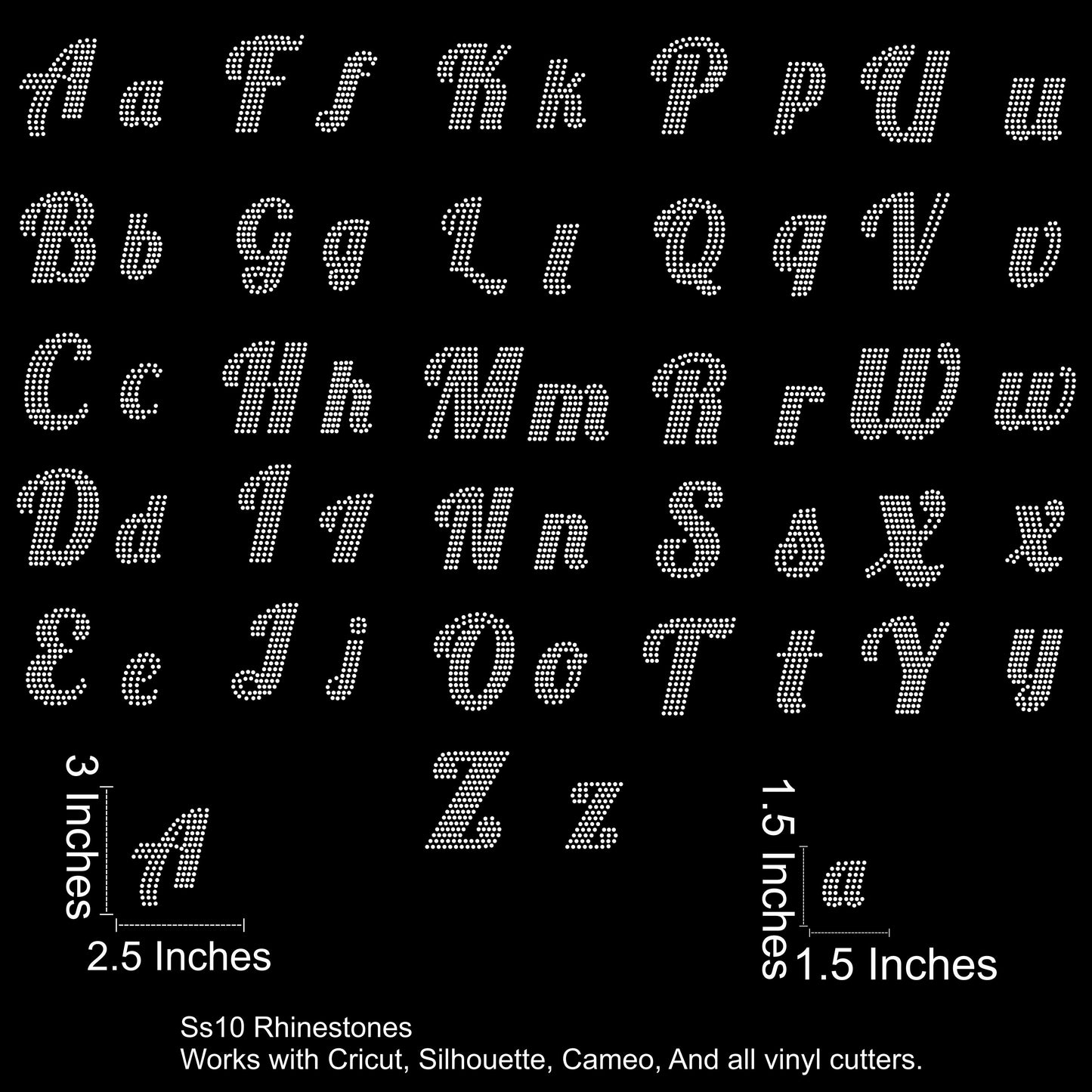
Curvy Luxe Rhinestone Font SVG File (3 inches Tall)
Curvy Luxe – Rhinestone Font SVG (SS10 Size Compatible)
Add elegance and bold style to your next creation with Curvy Luxe, a smooth and flowing script font designed for SS10 rhinestones. With curvy lines and clean spacing, this font brings a luxe feel to custom apparel, bags, and standout projects.
Font Details:
• Full alphabet: uppercase A–Z & lowercase a–z
• Capital letters: approx. 3 inches tall
• Lowercase letters: approx. 2 to 2.5 inches tall
• Rhinestone-ready spacing – no adjustments needed